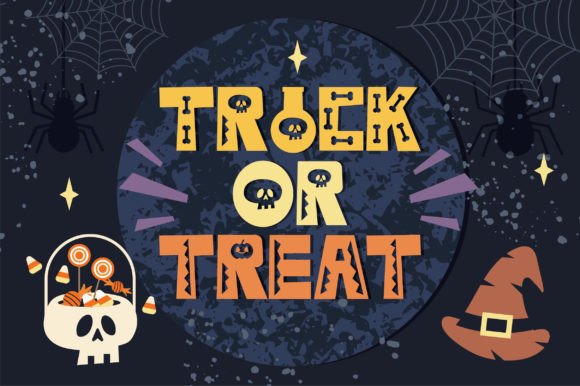
Skull and Pumpkin Font: The Ultimate Halloween-Themed Display Font
As the spookiest time of the year approaches, designers and creatives are on the lookout for the perfect font to add a touch of Halloween magic to their projects. Look no further than the Skull and Pumpkin font, a cute and playful display font that’s perfect for creating fun and eye-catching designs. In this article, we’ll dive into the world of Skull and Pumpkin, exploring its features, uses, and benefits, as well as providing tips and inspiration for incorporating it into your designs.
What is Skull and Pumpkin Font?
Skull and Pumpkin is a Halloween-themed display font that’s designed to add a touch of whimsy and fun to your designs. With two styles available, this font is perfect for creating a wide range of projects, from flyers and posters to social media graphics and more. The font features a unique and playful design, with bold lines and a cute, cartoon-like aesthetic that’s sure to delight.
Key Features of Skull and Pumpkin Font
So, what makes Skull and Pumpkin font so special? Here are just a few of its key features:
- Halloween-themed design: This font is specifically designed for Halloween, with a unique and playful aesthetic that’s perfect for the spookiest time of the year.
- Two styles available: Skull and Pumpkin font comes in two styles, giving you flexibility and variety when it comes to designing your projects.
- Cute and playful design: This font features a bold, cartoon-like design that’s sure to add a touch of fun and whimsy to your projects.
- Easy to read: Despite its playful design, Skull and Pumpkin font is easy to read, making it perfect for use in a wide range of projects.
Uses for Skull and Pumpkin Font
So, what can you use Skull and Pumpkin font for? The possibilities are endless! Here are just a few ideas to get you started:
- Halloween flyers and posters: Create eye-catching flyers and posters to promote your Halloween events or parties.
- Social media graphics: Use Skull and Pumpkin font to create fun and engaging social media graphics, such as Halloween-themed Facebook posts or Instagram stories.
- T-Shirts and merchandise: Create custom t-shirts, hoodies, and other merchandise featuring your favorite Halloween-themed designs.
- Invitations and party decorations: Use Skull and Pumpkin font to create custom invitations, banners, and other party decorations that will make your Halloween party stand out.
Tips for Using Skull and Pumpkin Font
Here are a few tips to keep in mind when using Skull and Pumpkin font:
- Use it sparingly: Skull and Pumpkin font is a bold and playful font, so use it sparingly to avoid overwhelming your designs.
- Pair it with other fonts: Consider pairing Skull and Pumpkin font with other fonts to create a unique and visually interesting design.
- Experiment with colors: Don’t be afraid to experiment with different colors and textures to add depth and interest to your designs.
Inspiration for Your Designs
Need some inspiration for your Skull and Pumpkin font designs? Here are a few ideas to get you started:
Create a spooky and fun Halloween flyer featuring Skull and Pumpkin font.
Design a custom pumpkin carving template featuring Skull and Pumpkin font.
Create a fun and engaging Halloween Instagram post featuring Skull and Pumpkin font.
Skull and Pumpkin font is a fun and playful display font that’s perfect for adding a touch of Halloween magic to your designs. With its unique and cute design, this font is sure to delight and inspire. Whether you’re creating flyers, posters, social media graphics, or more, Skull and Pumpkin font is the perfect choice. So why wait? Download Skull and Pumpkin font today and start creating your own spooky and fun designs!